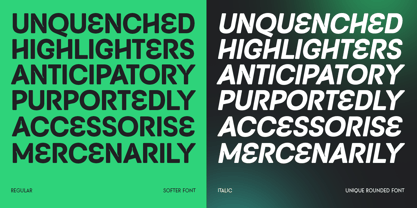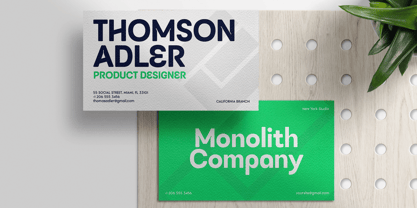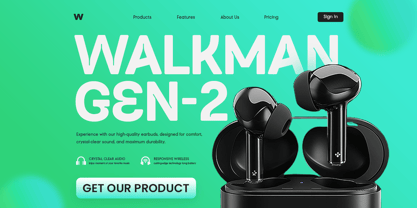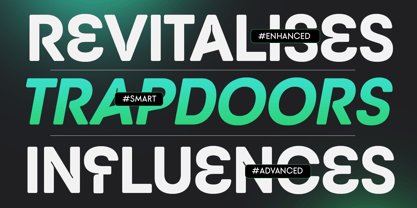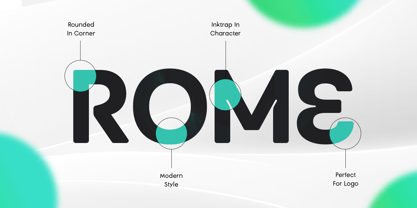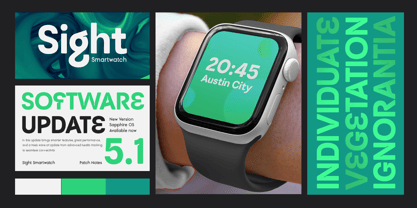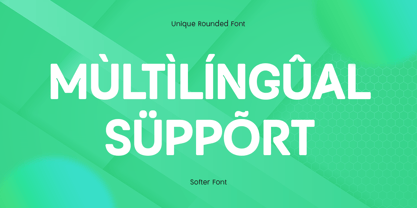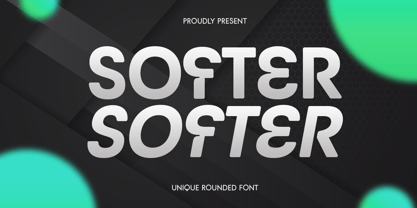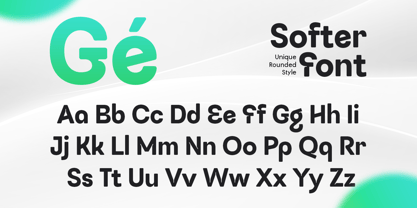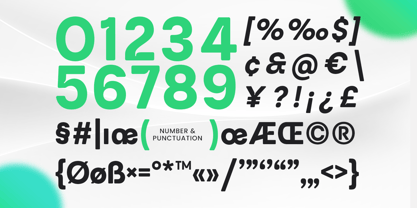
Softer
A família de fontes Softer foi desenhada por Zamroni Hamzah e publicada pela Sensatype Studio. Softer contém 2 estilos e opções de pacote familiar. Saiba mais sobre esta família
Softer is a unique rounded font that combines modern aesthetics with smooth, futuristic letterforms. Designed for technology, branding, UI/UX, and digital projects, this font delivers a soft yet high-tech feel that enhances readability and style.
With its fluid curves and bold yet minimal design, Softer is perfect for tech startups, futuristic logos, digital products, mobile apps, and creative branding. Its innovative rounded edges give it a friendly yet professional appeal, making it ideal for both cutting-edge tech projects and sleek modern designs.
Whether you're working on AI-driven interfaces, digital marketing, or futuristic product packaging, Softer provides a dynamic balance between modern sophistication and approachability.
Softer - Unique Rounded Font Features:
• Regular and Italic Version Ready
• Smooth, modern, and uniquely rounded design
• Perfect for branding, UI/UX, and tech-inspired projects
• Punctuation, numbers, and symbols included
• Uppercase and lowercase letters
• OpenType features for advanced creativity
Multilingual support for:
Afrikaans, Albanian, Basque, Breton, Catalan, Croatian, Danish, Dutch, English, Estonian, Finnish, French, Galician, German, Hungarian, Icelandic, Indonesian, Irish, Italian, Latvian, Lithuanian, Luxembourgish, Maltese, Norwegian, Polish, Portuguese, Romanian, Slovak, Slovenian, Spanish, Swedish, Turkish, Welsh, and more.
Bring a soft yet futuristic edge to your designs with Softer—the perfect rounded font for modern and tech-inspired visuals.
Designers: Zamroni Hamzah